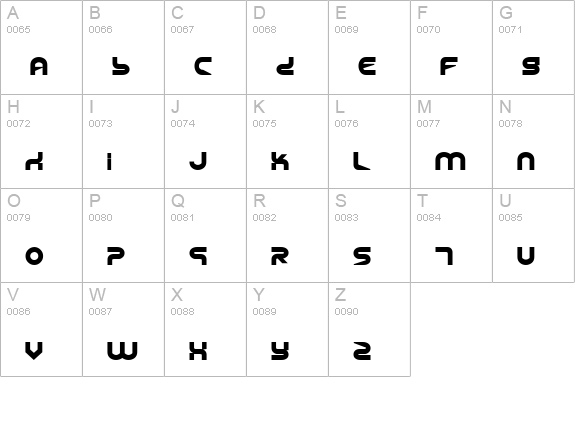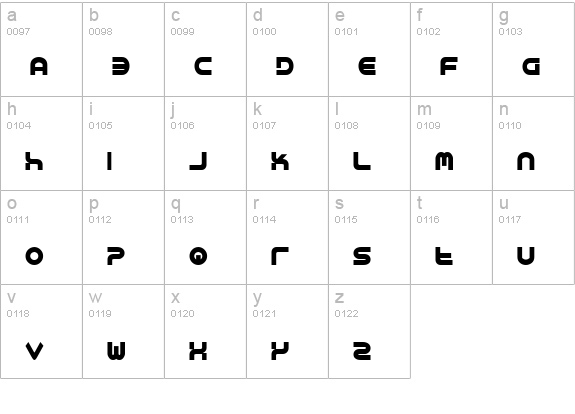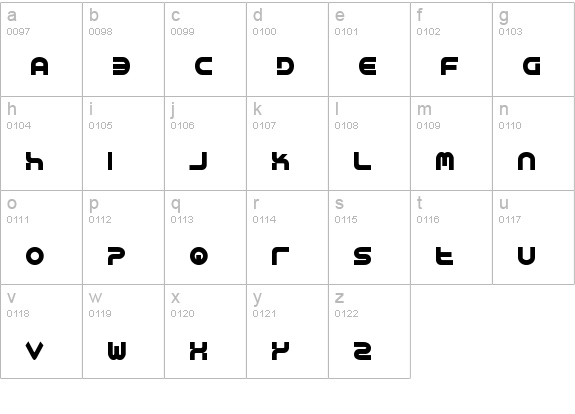
Yukon Tech Bold is a strong, high-contrast variant in the Yukon typeface family \xE2\x80\x94 well suited to headlines, attention-grabbing titles, and strong calls-to-action.
Yukon Tech Bold is a striking and modern display font that exudes confidence and strength. With its bold and geometric design, this font is perfect for headlines, logos, and branding projects that require a powerful and impactful look. The clean lines and sharp edges of Yukon Tech Bold command attention and make a statement. What sets Yukon Tech Bold apart is that it is available for free download at FontsMarket.com. This means that you can easily access this versatile font for your design projects without any cost. Whether you're a professional designer looking to add a new font to your collection or a student working on a creative project, Yukon Tech Bold is a fantastic choice that won't break the bank. Download it today and elevate your designs with this impressive and dynamic font.